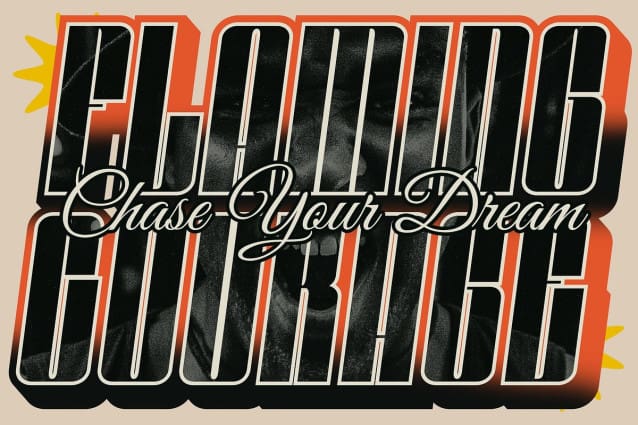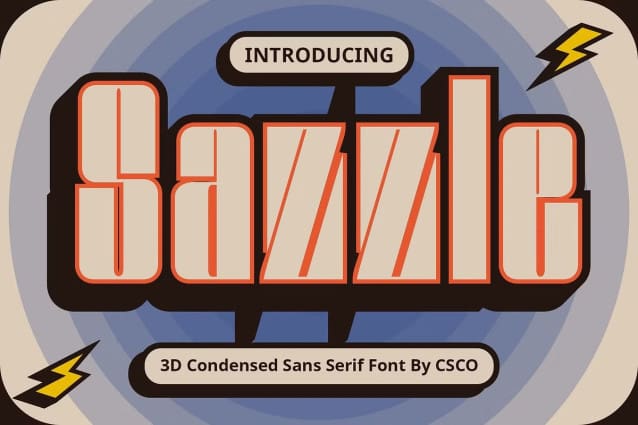
Sazzle 3D Font
Sazzle 3D Font: Redefining Display Typography. Narrow White Space Sazzle 3D features tight white space, maximizing character presence within limited areas. Its condensed design ensures impactful display usage without sacrificing readability.
Dynamic 3D Effects With striking 3D effects, This font elevates conventional display fonts. Each character pops off the page, creating depth and dimension that captivate the viewer’s attention instantly.
Tailored for Display Needs Crafted specifically for display purposes, This font excels in various contexts, from digital interfaces to print media. Its unique design elements ensure optimum visibility and engagement.
Versatile Application Despite its narrow white space, This font offers versatility in application. Whether for headlines, logos, or promotional materials, its 3D effects add a touch of sophistication and visual interest.
Bold and Impactful This font redefines display typography with its narrow white space and dynamic 3D effects. Perfectly suited for display needs, it offers versatility and impact across various design projects. Step into the world of Sazzle 3D and elevate your designs with bold sophistication.